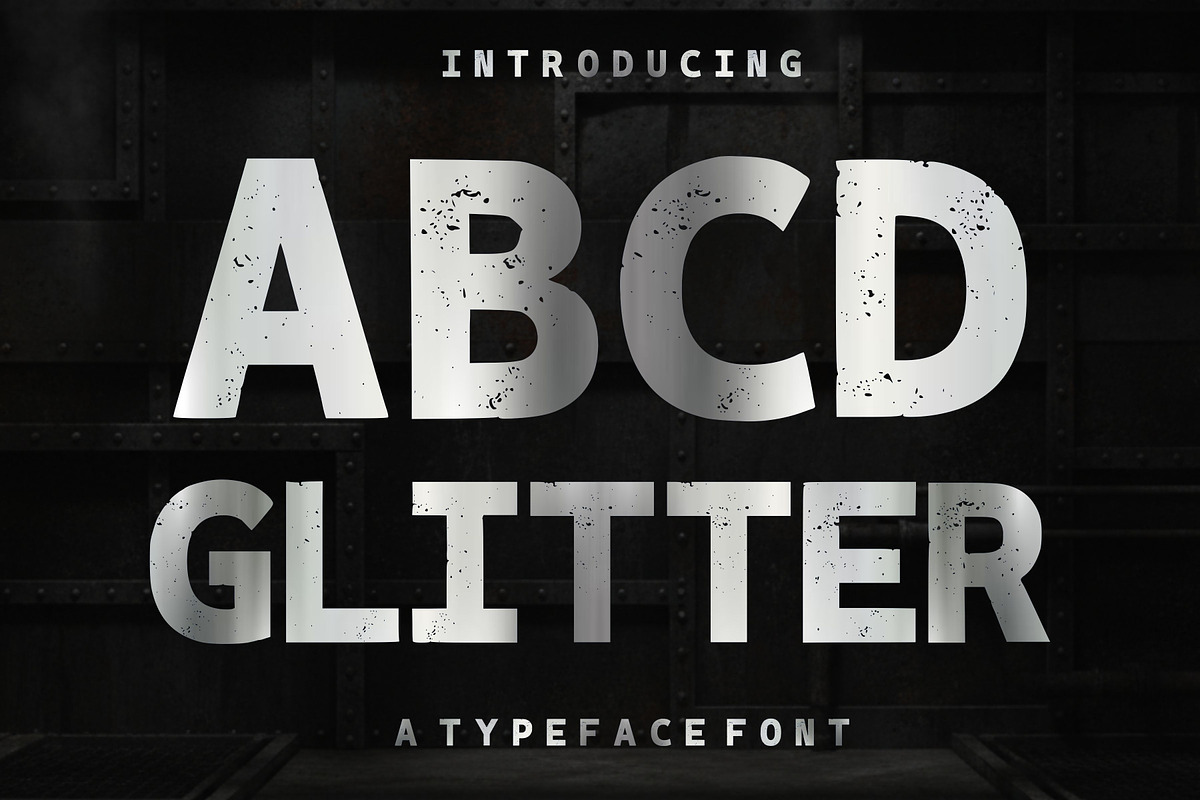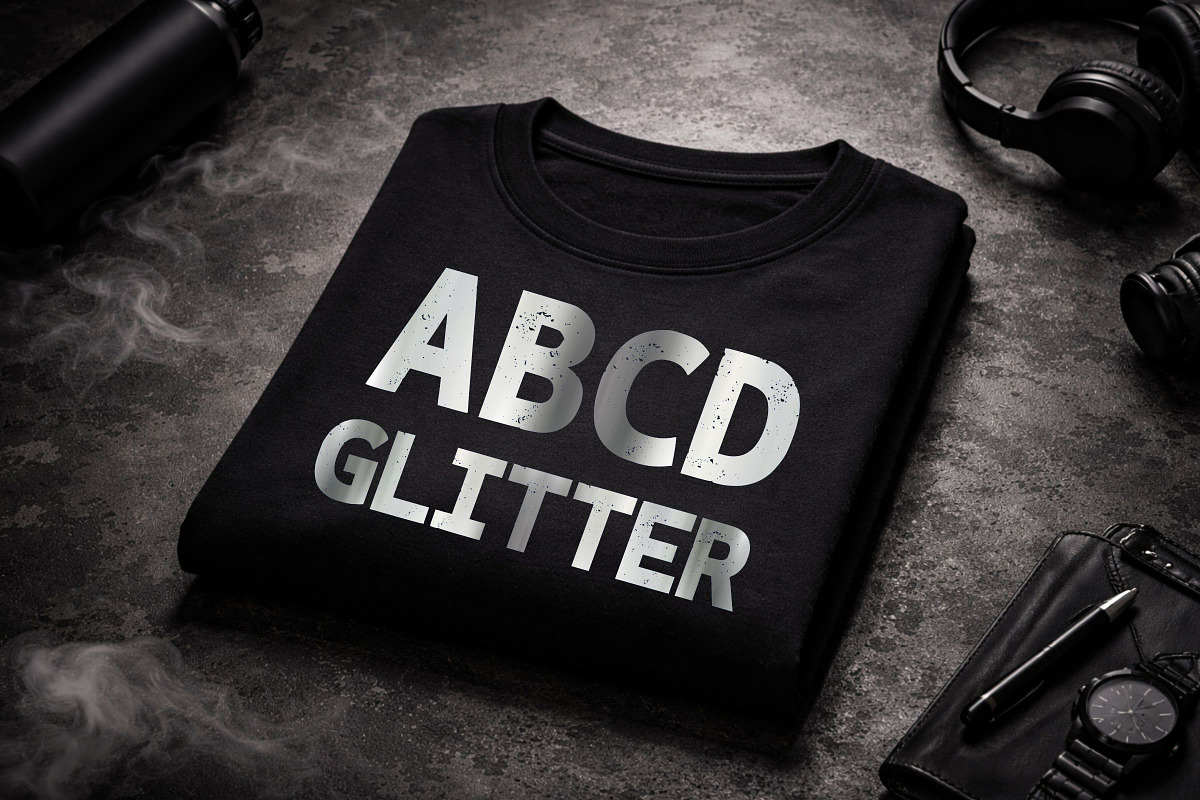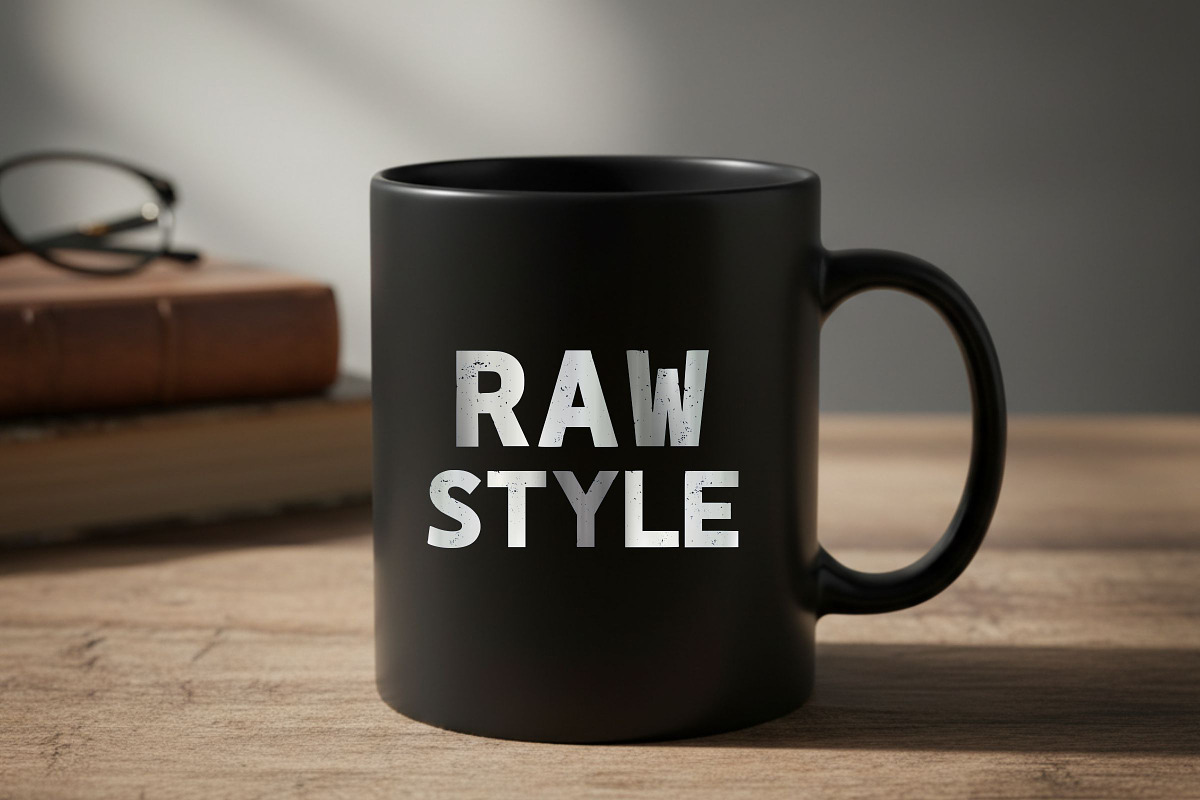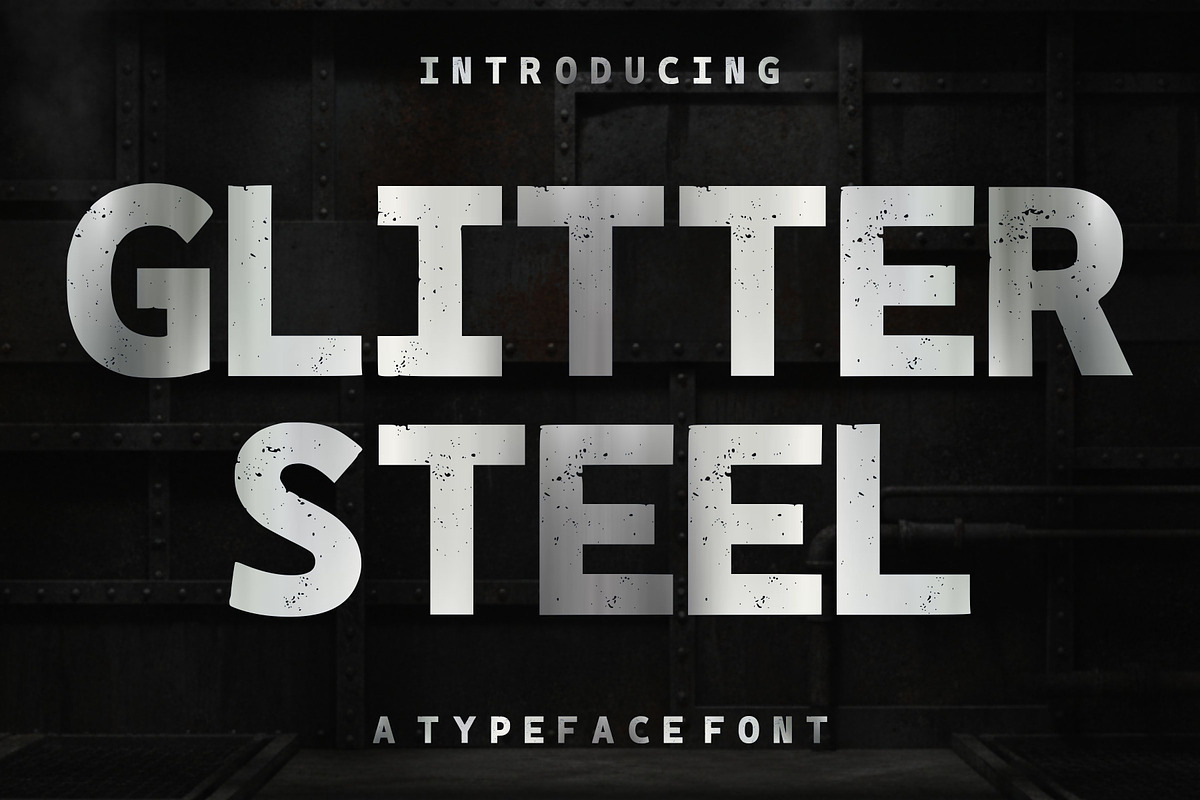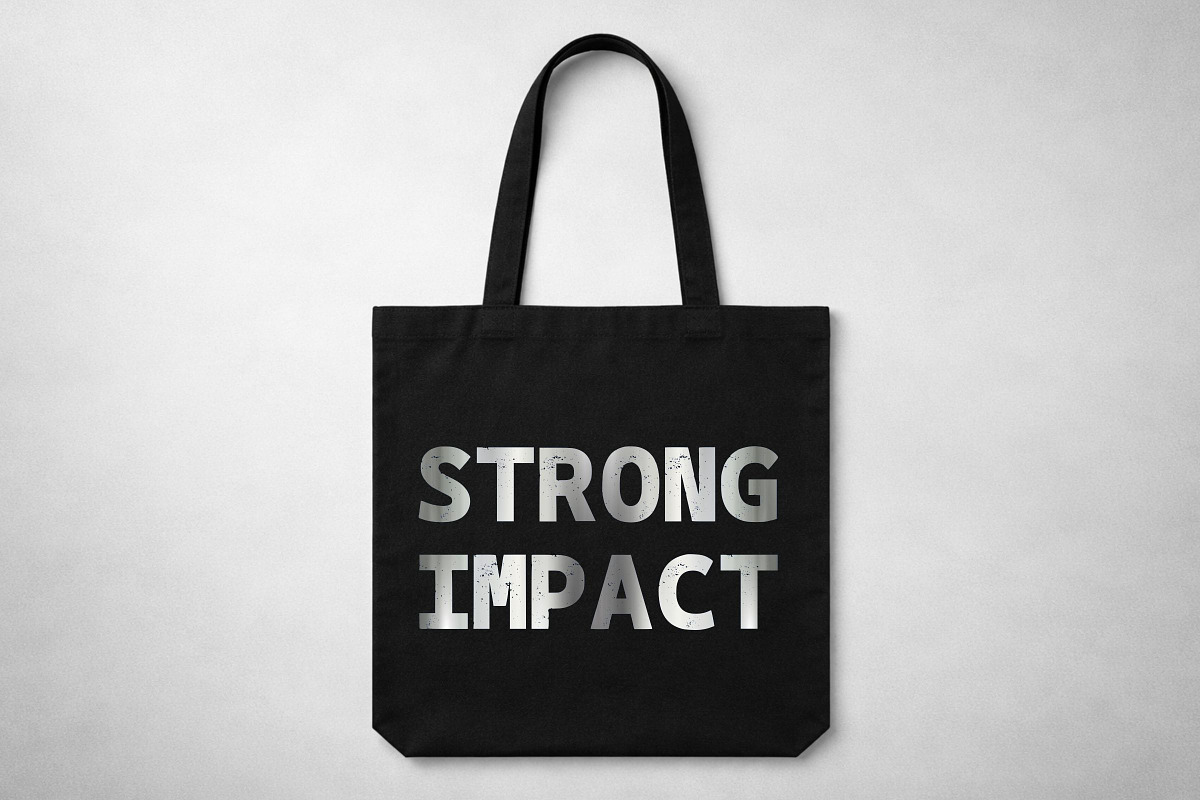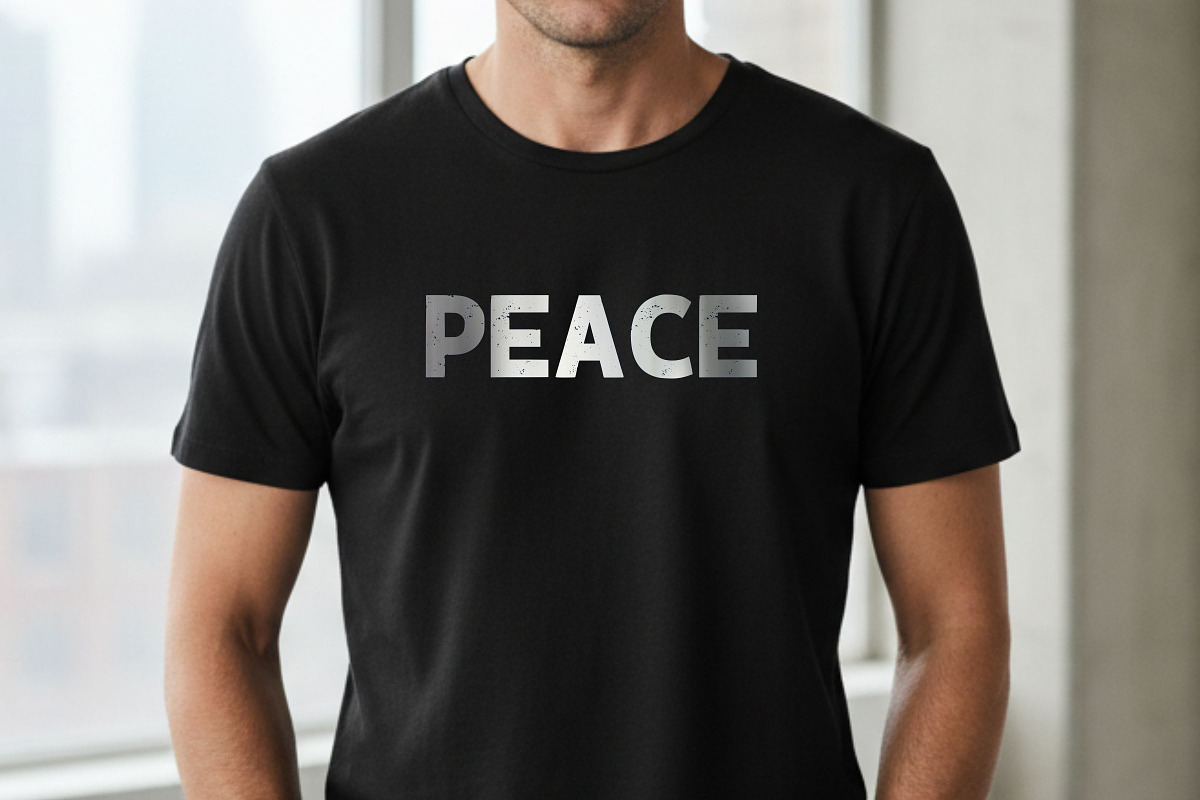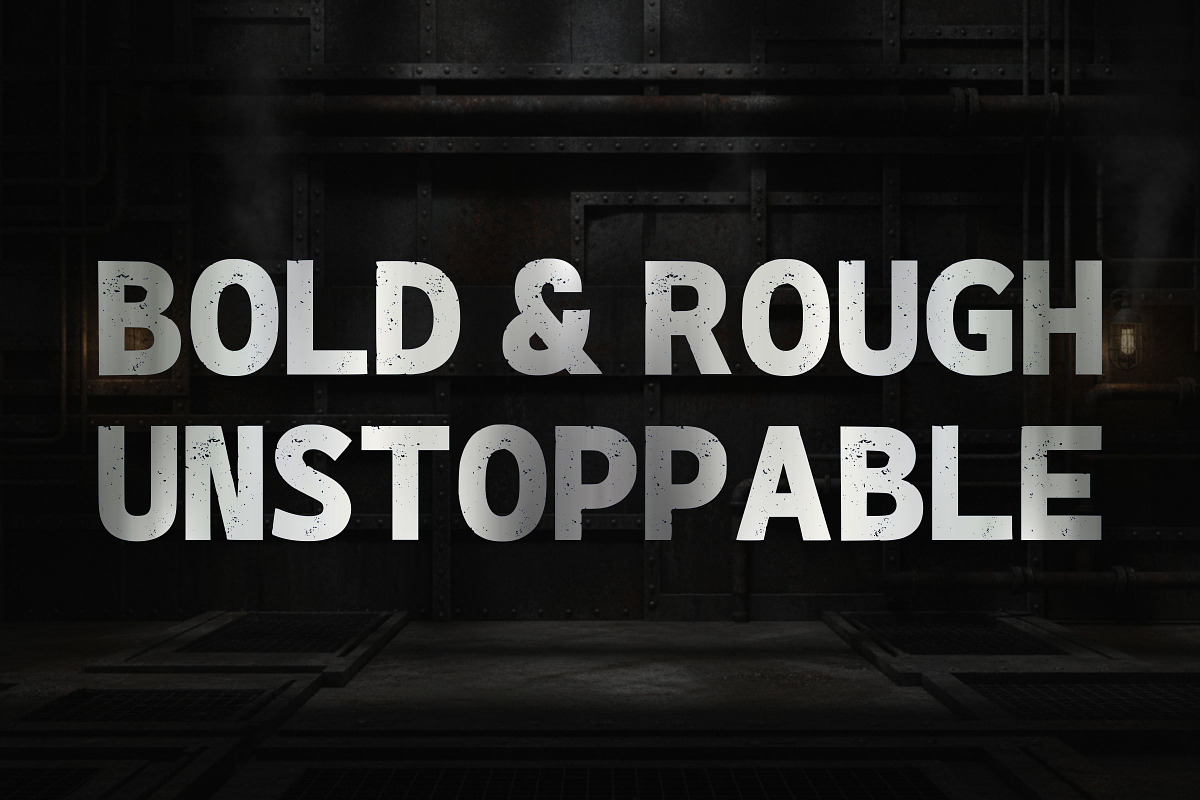
Glitter Steel
Glitter Steel a bold and modern sans serif font featuring a stylish distressed texture that adds a rugged and edgy character to your designs. Perfect for eye-catching headlines, branding, posters, apparel designs, and urban-style projects, this font delivers a strong visual impact while maintaining excellent readability.
With its clean geometric structure combined with grunge details, Glitter Steel is ideal for designers looking to create bold statements with a vintage-industrial touch.